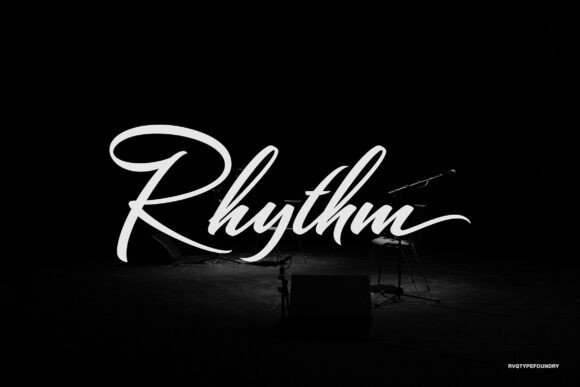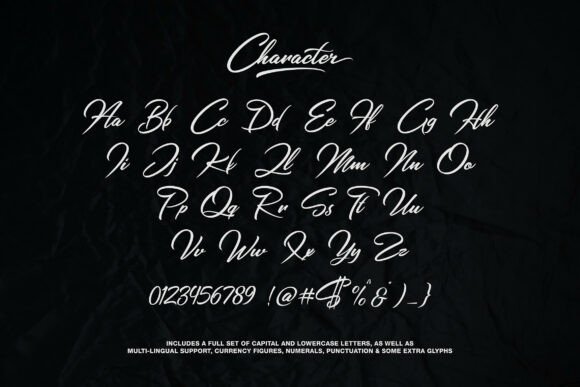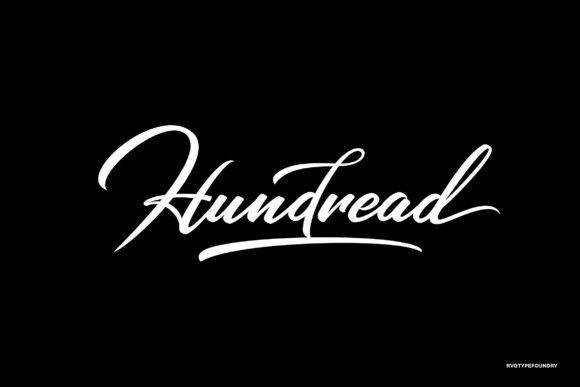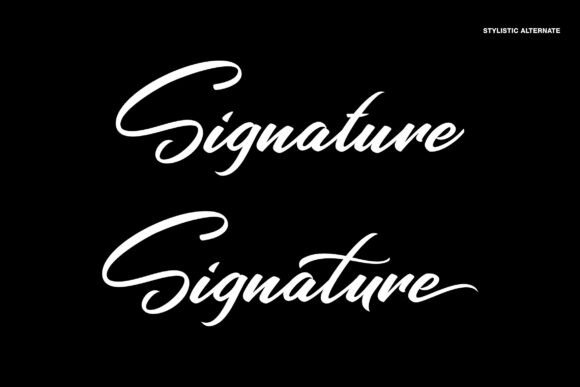
The Perfect Brushstroke: Elevate Your Brand with Chandy Signature Font
Have you ever been brainstorming a new project and stumbled upon that perfect brushstroke that makes your design come alive? For many designers, that elusive “wow” moment is what sets their work apart. It’s the subtle nuance of a handwritten touch that adds depth and character to even the simplest of designs. If you’re looking to capture that effortless style and sophistication in your next project, look no further than the Chandy Signature Font.
This beautifully flowing script typeface is designed to evoke a sense of luxury and exclusivity, making it the perfect choice for high-end branding, photography, and stationery. With its elegant, sweeping strokes and natural rhythmic flow, the Chandy Signature Font creates an authentic “hand-signed” feel that instantly elevates your designs to the next level.
For designers looking to convey personality and luxury in every stroke, the Chandy Signature Font is a must-have addition to your toolkit. Pair it with a minimalist sans-serif for a contemporary look that feels both professional and intimate, and get ready to take your designs to new heights.
Chandy Signature Font Key Features
- Font Family: Chandy Signature Font
- Font Style: Script, Signature
- Unique Characteristics: Handwritten, cursive, elegant, and stylish; perfect for signatures, invitations, and formal events
Chandy Signature Font Review
I recently had the chance to work with the Chandy Signature Font, and overall, I was quite impressed. ✨ The font’s unique, hand-drawn style is perfect for adding a touch of personality to designs, and its wide range of glyphs makes it incredibly versatile. I loved how it worked well with both digital and print projects.
One of the standout features of this font is its expressive, handwritten feel, which makes it ideal for creating engaging and emotive designs. ✨ The font’s subtle variations in letterform and spacing give it a natural, hand-crafted look that’s perfect for branding, packaging, and advertising materials.
- Unique, hand-drawn style
- Wide range of glyphs
- Expressive, handwritten feel
- Perfect for digital and print projects
- Some glyphs may be difficult to read at small sizes
- May not be suitable for formal or corporate designs
- Some users may find the font’s variability distracting
Overall, I think the Chandy Signature Font is a great addition to any designer’s toolkit. While it may not be perfect for every project, its unique style and versatility make it a valuable asset for creatives looking to add some personality to their designs. ⚠️ Just be sure to use it thoughtfully, and consider the needs of your project before making a final decision.
The Chandy Signature Font is perfect for creating professional-looking logos, branding materials, and business cards. It’s also great for adding a touch of elegance to wedding invitations, menus, and other event materials.
For optimal results, use the Chandy Signature Font in conjunction with high-quality images and a clean design aesthetic.
Q: Does Chandy Signature Font support ligatures and alternates?
Yes, the Chandy Signature Font includes a range of ligatures and alternates that can be accessed through your design software’s font menu. This allows you to customize the font to fit your specific design needs and create unique, hand-crafted effects.